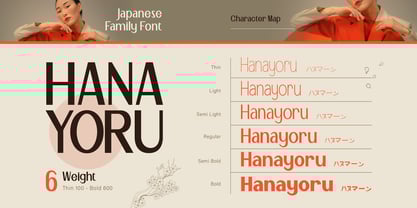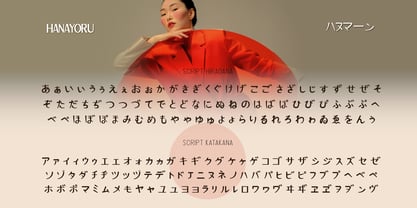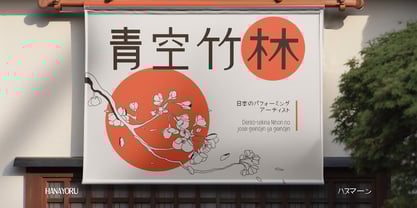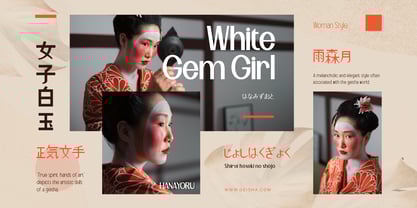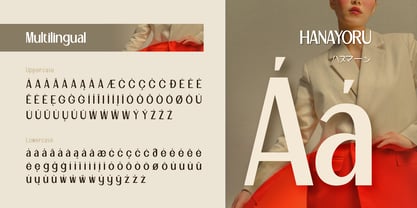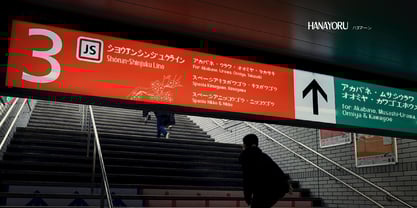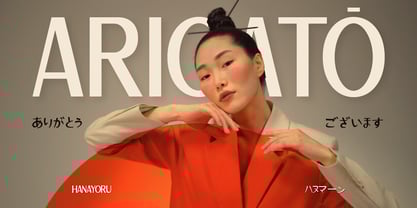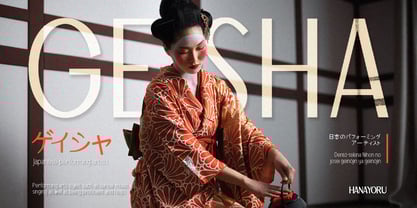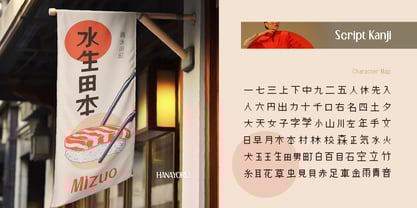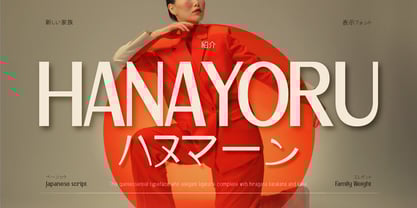
Hanayoru
The Hanayoru Font Family was designed by Eric Kurniawan and published by Burntilldead. Hanayoru contains 6 styles and family package options.
Introducing Hanayoru, modern elegant japanese font with latin characters. This font comes with Hiragana, Katakana, and Kanji, also offers 6 weight variations, from Thin to Bold. Thanks to its clean and well-structured design, this font stays highly readable across all styles.
With a perfect blend of Latin and Japanese characters, Hanayoru is super versatile for any design project that requires both languages. It strikes the perfect balance between traditional aesthetics and modern appeal.
Perfect for branding, logos, editorials, packaging, or even Japanese-themed posters – Hanayoru is ready to bring your designs to life! 🌸✨
Features:
• A - Z set (Uppercase & Lowercase)
• Number
• Punctuation
• Ligature
• Multilingual